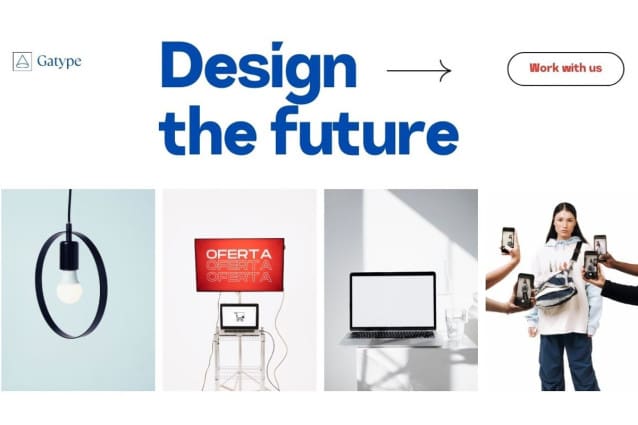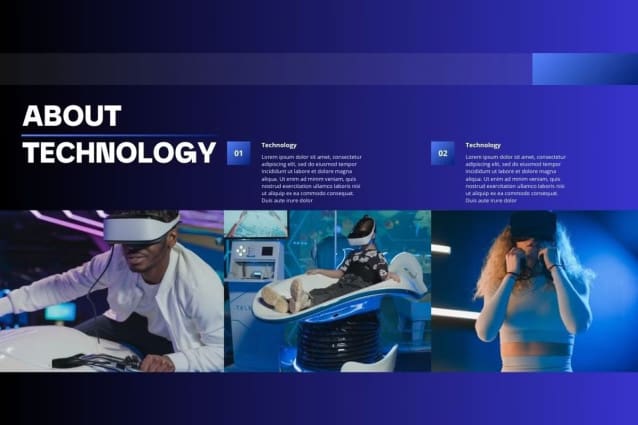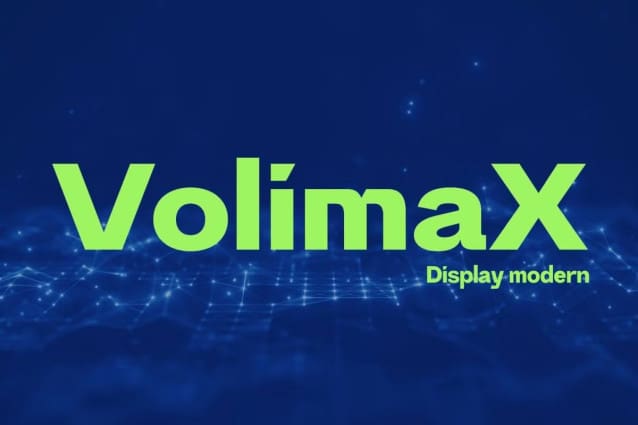
Volimax Font
Volimax Font is a Display font with bold, clean, large shapes. The typeface as a whole is strong in conveying order and harmony between letters. Best used as Instagram, poster, web design, magazine, logo or product.